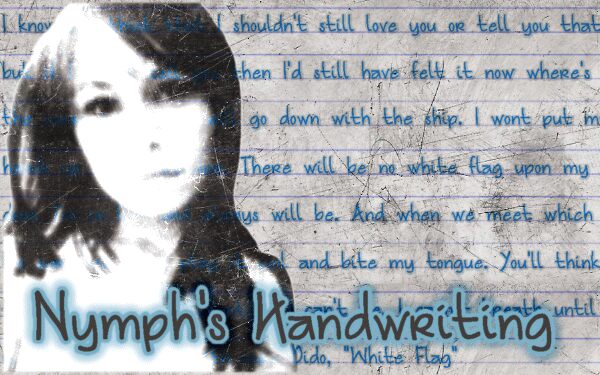
Nymph's Handwriting by Lauren Thompson, also known as Nymphont, is a free casual handwritten font with the easy look of broad felt-tip lettering. Its rounded strokes change width gently, and the tall, loosely formed letters keep the writing personal and unpolished, with uneven joins and a gently wavering baseline. The line feels quick and relaxed.
Personal notes, everyday stories, and handmade gifts match its conversational spirit, making it useful for journals, scrapbook captions, and greeting cards. The same unstudied curves can lend cafe packaging and small lifestyle brands the warmth of a name written directly by its owner rather than typeset.
Nymph's Handwriting is based on the handwriting of font designer Lauren Thompson, who uses the pseudonym, "Nymphont," where the font's title comes from.